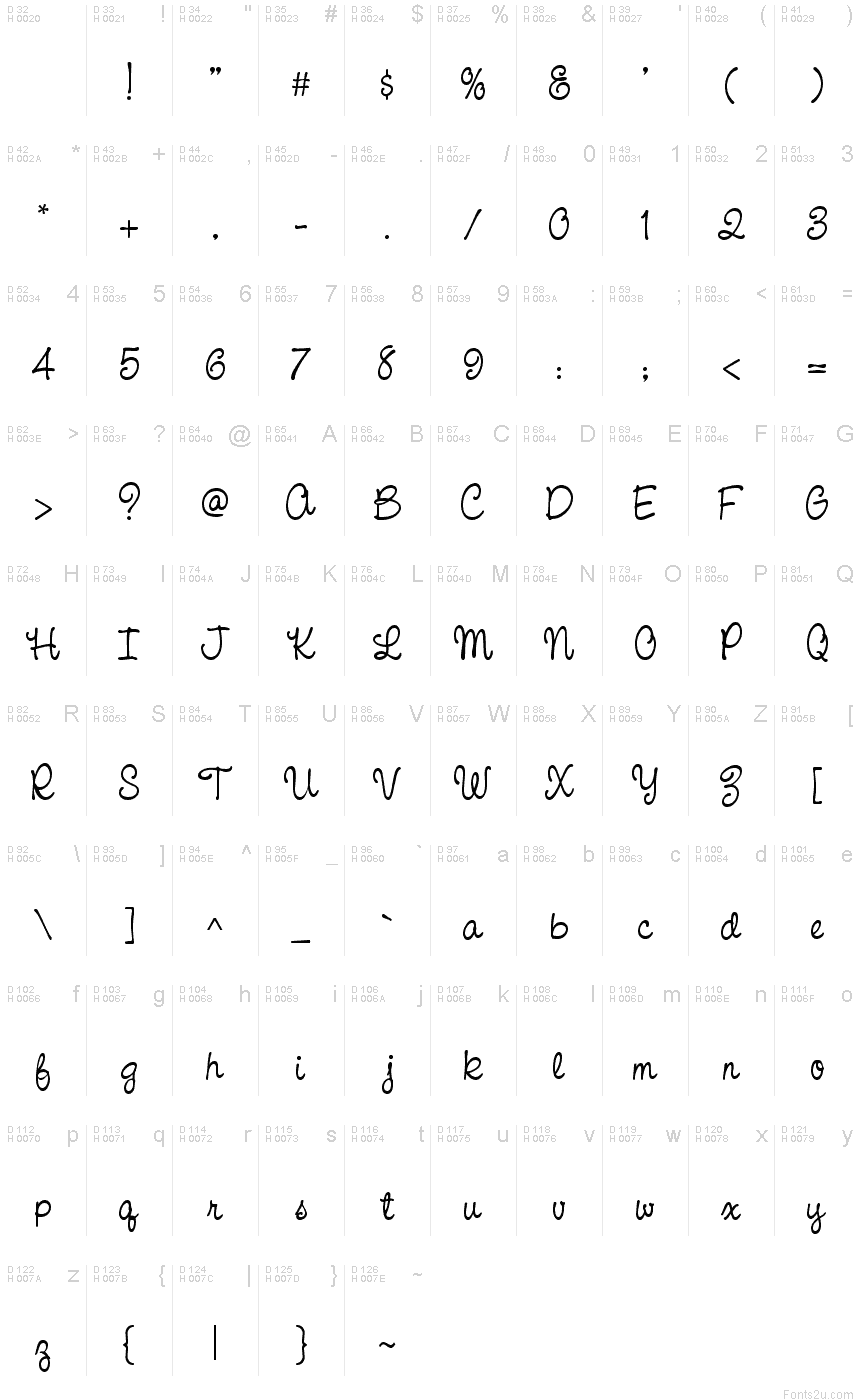
CAC Pinafore
CAC Pinafore font by American Greetings Corporation is a free handwritten font with an easygoing, inky charm. Rounded curves, even strokes, and snug letter spacing make it feel like a neat note jotted with a favorite gel pen—casual but still very readable. It has a gentle bounce that adds warmth without turning messy, so your lettering feels friendly rather than childish.
Using CAC Pinafore, you can give greeting cards, invitations, planners, classroom materials, social posts, and quote graphics a cozy, personal voice. This free font shines on anything that needs sincerity, from small-business packaging to digital stickers and journaling pages. Pair it with a simple sans serif for body text, and let CAC Pinafore handle headings, names, and short phrases at slightly larger sizes.